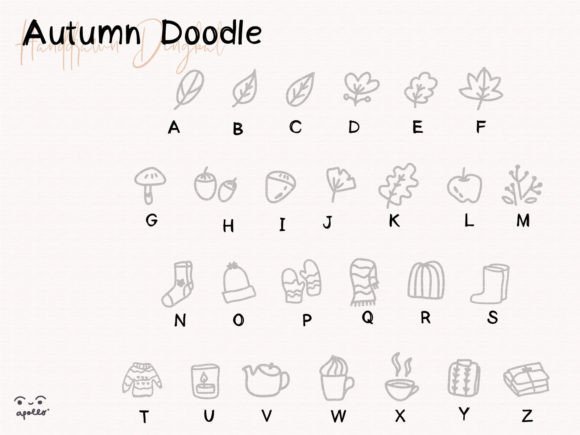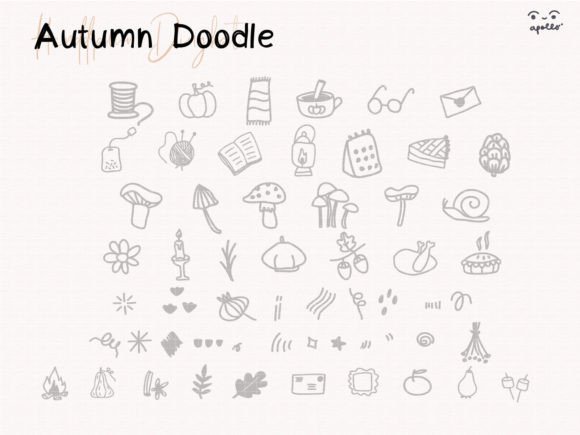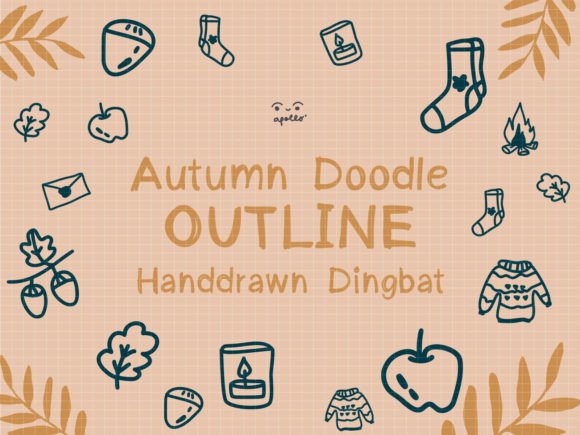
Introducing Autumn Doodle Font: The Perfect Addition to Your Design Projects
As the leaves change colors and the air grows crisper, designers and crafters alike are on the lookout for inspiration to infuse their projects with the warmth and coziness of the autumn season. That’s where the Autumn Doodle Font comes in – a delightful, hand-drawn doodle dingbats font that’s bursting with fun and festive elements.
What is Autumn Doodle Font?
Autumn Doodle is a unique, hand-drawn font that features an assortment of autumn-themed doodles, including leaves, acorns, pumpkins, and more. This charming font is perfect for adding a personal touch to a wide range of design projects, from invitation embellishments and wall art to beverage logos and seamless patterns.
Key Features of Autumn Doodle Font
- Hand-drawn doodle dingbats font: Each character is carefully crafted to give your designs a personal, whimsical feel.
- Autumn elements: The font features a variety of autumn-themed doodles, including leaves, acorns, pumpkins, and more.
- Versatile: Use Autumn Doodle Font for a wide range of design projects, from digital to print.
Uses for Autumn Doodle Font
The possibilities are endless when it comes to using Autumn Doodle Font in your design projects. Here are a few ideas to get you started:
- Invitation Embellishments: Add a touch of autumn whimsy to your invitations, save-the-dates, and thank-you cards.
- Wall Art: Create stunning wall art pieces featuring autumn-themed doodles and patterns.
- Beverage Logos: Use Autumn Doodle Font to create eye-catching logos for seasonal beverages, such as pumpkin spice lattes or apple cider.
- Seamless Patterns: Design beautiful, seamless patterns featuring autumn doodles to use in your projects or sell as digital downloads.
- Social Media Graphics: Add a seasonal touch to your social media graphics, such as blog post headers, Facebook posts, and Instagram stories.
Tips for Using Autumn Doodle Font
To get the most out of Autumn Doodle Font, here are a few tips to keep in mind:
- Experiment with different sizes and colors: Play around with different font sizes and colors to add visual interest to your designs.
- Combine with other fonts: Pair Autumn Doodle Font with other fonts to create unique and eye-catching designs.
- Use as a design element: Use the doodle elements as a design element in their own right, rather than just as a font.
Autumn Doodle Font is a delightful, hand-drawn font that’s perfect for designers and crafters looking to add a touch of autumn whimsy to their projects. With its fun and cozy elements, this font is sure to inspire a wide range of creative projects, from invitation embellishments and wall art to beverage logos and seamless patterns. So why wait? Download Autumn Doodle Font today and start creating your own autumn-inspired masterpieces!